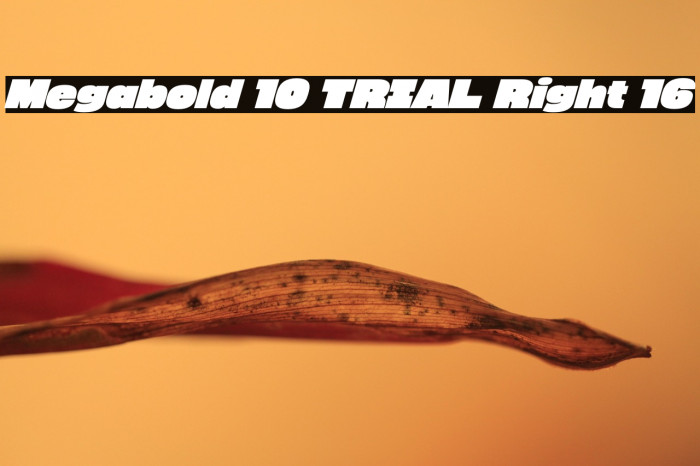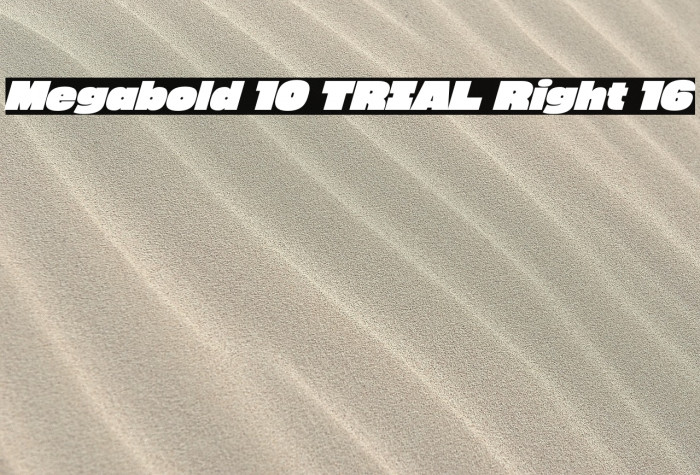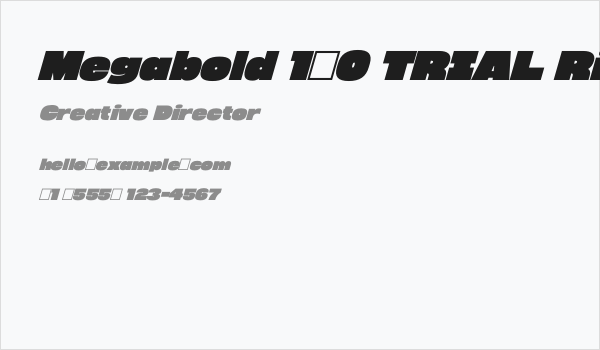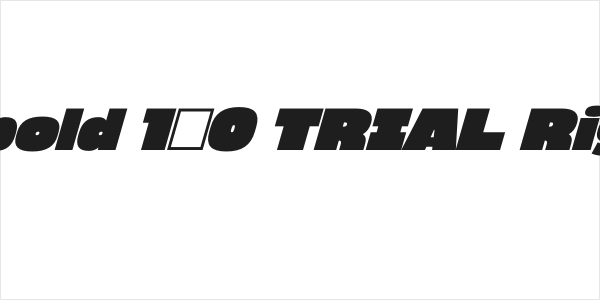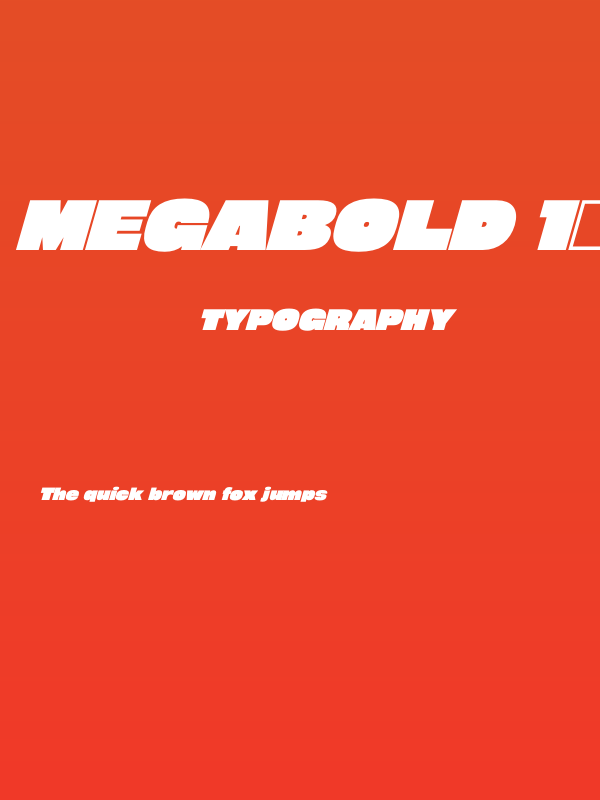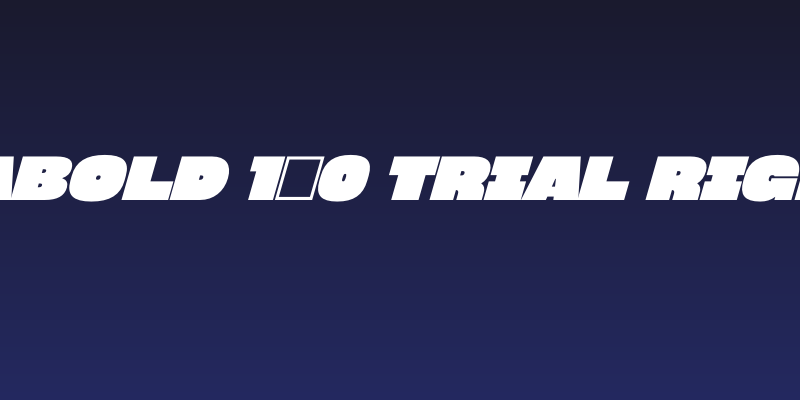
Megabold 1.0 TRIAL Right 16 Font
Megabold 1.0 TRIAL Right 16 Description
This font features a bold and impactful design with thick, heavy strokes that create a strong visual presence. The characters are slightly slanted, adding a dynamic and energetic feel. The uppercase and lowercase letters maintain consistent weight, contributing to a cohesive look. The numbers are equally bold, ensuring readability and emphasis. Special characters are included, matching the overall robust style. This font is ideal for making statements and grabbing attention.
Proposed ProjectsPerfect for headlines, posters, branding, and advertising where a bold statement is needed.